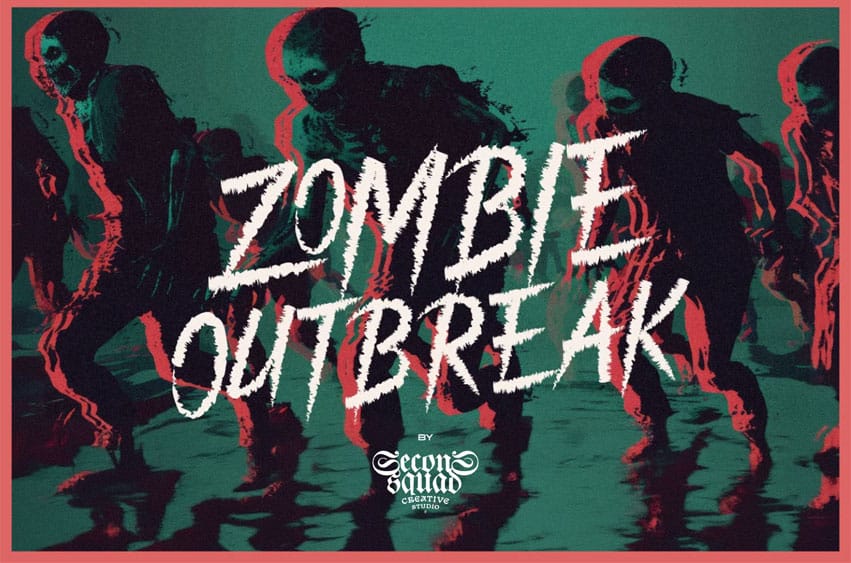
Zombie Outbreak Font is a terrifying Halloween font crawling with creepy detail and raw gothic horror energy. Its jagged, decayed letterforms are perfect for scary movie posters, horror headlines, thriller covers, and witchy branding that demands a touch of evil. Each character drips with spooky tension, summoning monsters, death, and shadows of mystery into your designs.
From haunted Halloween invitations to gothic death notes, Zombie Outbreak infects every project with fear and fascination. Whether you’re crafting a witch’s curse poster, a deathly thriller logo, or a monster-filled horror display, this font delivers the perfect outbreak of style and darkness.